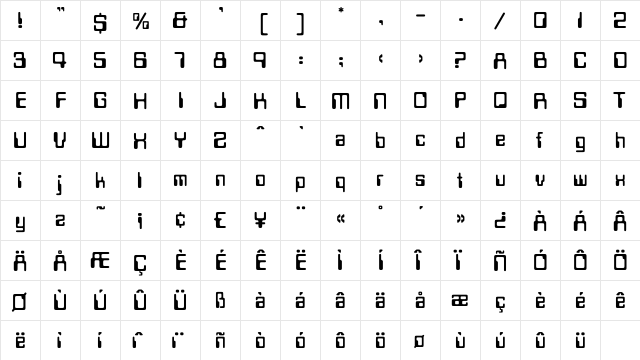
Data70Plain Regular
Design Context for Data70Plain Typeface
Data70Plain is a composed and adaptable typeface that performs quietly and consistently across a wide range of design contexts.